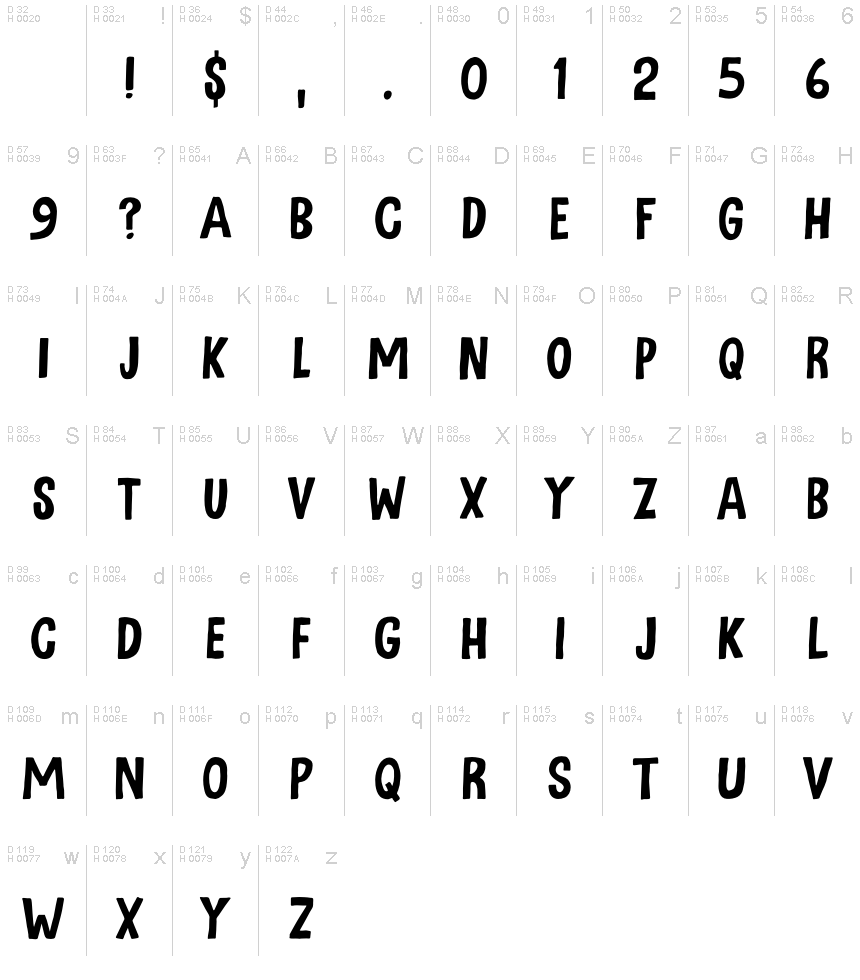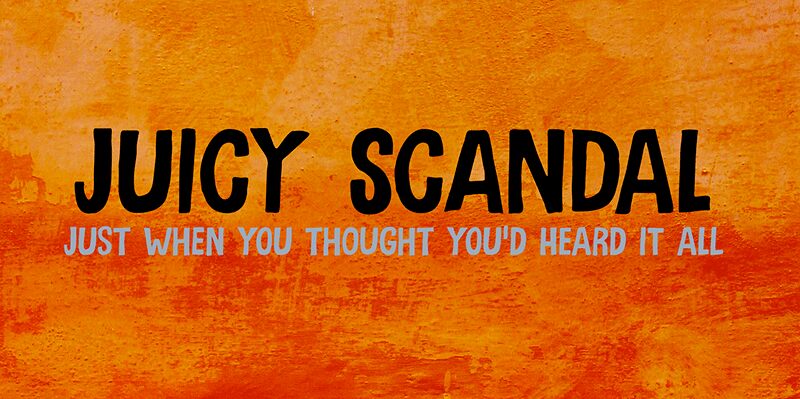
Juicy Scandal DEMO Regular
Juicy Scandal font, crafted by Hanoded, belongs to the display font family with a playful comic style. Its condensed form captures attention with bold, striking characters that exude a dynamic and whimsical energy. Perfect for vibrant posters, eye-catching headlines, and quirky branding projects, Juicy Scandal promises to infuse any design with an extra dose of personality.